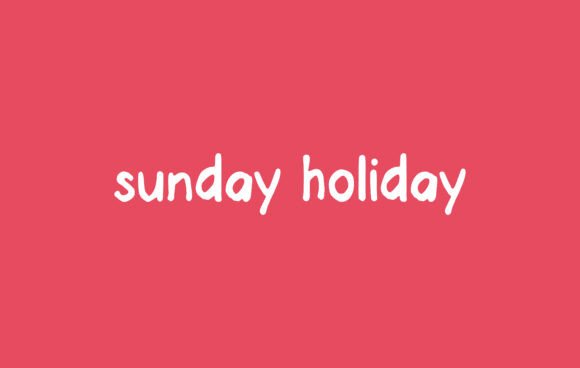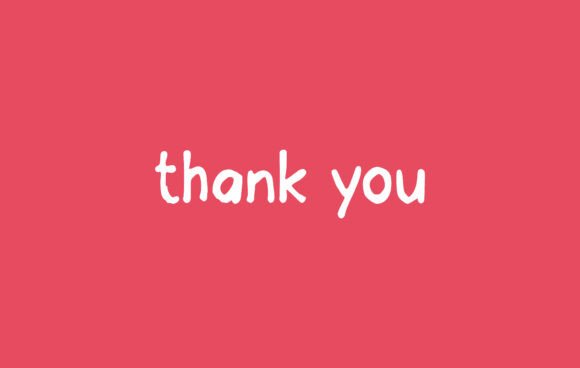
Discover the Charm of Enrique Font: Elevate Your Designs with a Romantic Touch
In the world of typography, a good font can make all the difference in bringing your creative ideas to life. If you’re a designer, craftsperson, or simply someone who appreciates the art of beautiful writing, then you’re in for a treat with Enrique Font. This authentic handwritten font is imbued with a romantic touch that is sure to capture the hearts of those who lay eyes on it. In this article, we’ll delve into the features and benefits of Enrique Font, and explore how it can be the perfect addition to your design toolkit.
The Essence of Enrique Font
Enrique Font is more than just a collection of letters; it’s an expression of elegance and charm. Expertly designed to convey a sense of warmth and personality, this font is characterized by its smooth, flowing lines and delicate imperfections that give it a distinctly human feel. Whether you’re looking to make a statement with a bold title or seeking a legible and stylish option for body text, Enrique Font is up to the task.
One of the standout features of Enrique Font is its incredible versatility. Its legibility and aesthetic appeal make it suitable for a wide range of design projects. Here are just a few ways you can use Enrique Font to elevate your creative endeavors:
- Magazine Headlines: Grab the attention of your readers with eye-catching headlines that exude sophistication and style.
- Social Media: Stand out in a crowded feed with social media posts that showcase your unique voice and personality.
- Branding: Create a lasting impression with a font that communicates your brand’s values and aesthetic.
- Wedding Invitations: Add a touch of romance and whimsy to your wedding invitations, making them truly unforgettable.
- Cards: Whether it’s a birthday, anniversary, or holiday card, Enrique Font is sure to make your message feel special.
Why Choose Enrique Font?
With so many fonts available, what sets Enrique Font apart? Here are a few reasons why designers and crafters are falling in love with this beautiful typeface:
- Authentic Handwritten Feel: Enrique Font captures the essence of handwritten script, adding a personal touch to your designs.
- Romantic Touch: Its elegant and charming appearance makes it perfect for projects that require a bit of whimsy and romance.
- Legibility: Despite its decorative nature, Enrique Font remains highly legible, making it suitable for both titles and body text.
Tips for Using Enrique Font
To get the most out of Enrique Font, here are a few tips to keep in mind:
- Experiment with Sizes: Enrique Font looks great in various sizes, from large headlines to smaller body text.
- Play with Colors: Don’t be afraid to experiment with different colors to find the perfect match for your design.
- Mix and Match: Combine Enrique Font with other fonts to create visually appealing contrast and hierarchy in your designs.
Enrique Font is a true gem in the world of typography, offering a unique blend of elegance, charm, and versatility. Whether you’re a seasoned designer or a crafty DIY enthusiast, this authentic handwritten font with a romantic touch is sure to inspire your creativity and take your projects to new heights. With its legibility, aesthetic appeal, and wide range of applications, Enrique Font is an excellent addition to any design toolkit. So why wait? Discover the charm of Enrique Font today and let your designs speak with a voice that’s both personal and captivating.